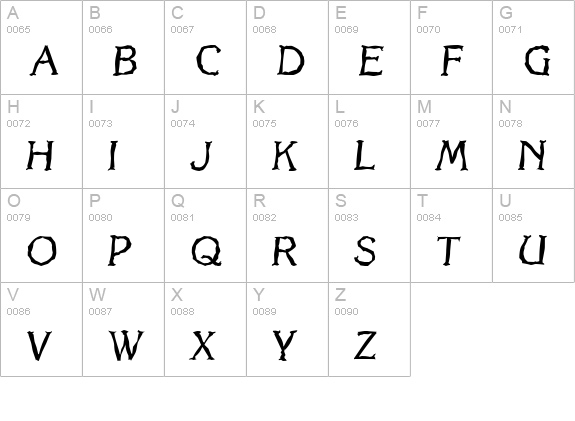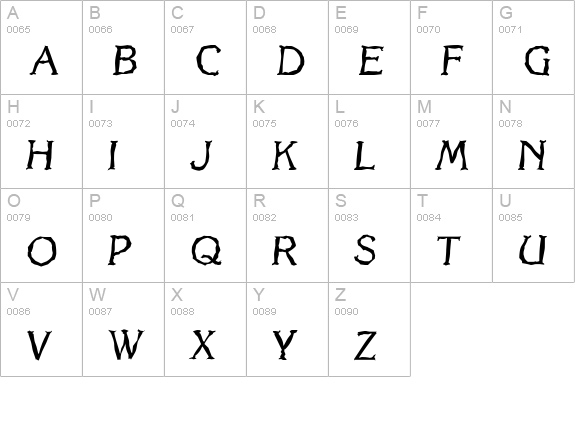
KorinthRandom-Italic is a distinctive, italic variant in the KorinthRandom typeface family \xE2\x80\x94 well suited to design and typography projects.
KorinthRandom-Italic font is a stylish and unique typeface that adds a touch of elegance to any design project. With its striking curves and modern aesthetic, this font is perfect for branding, editorial design, and more. The italicized version of KorinthRandom exudes sophistication and creativity, making it a versatile choice for both digital and print applications. Best of all, KorinthRandom-Italic font is available for free download at FontsMarket.com. So whether you're a designer looking to elevate your work or a creative looking to add a special touch to your projects, this font is the perfect choice for you. Download KorinthRandom-Italic today and see the difference it can make in your designs!